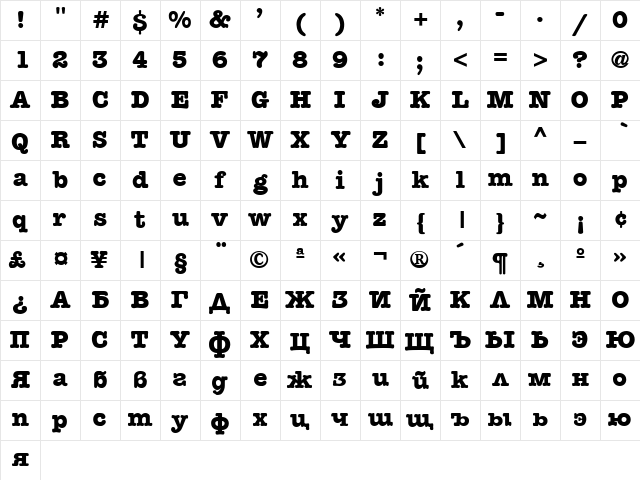
Matrix B_ Cyrillic Regular
Design Context for Matrix B_ Cyrillic
Matrix B_ Cyrillic is a composed and adaptable typeface that performs quietly and consistently across a wide range of design contexts.